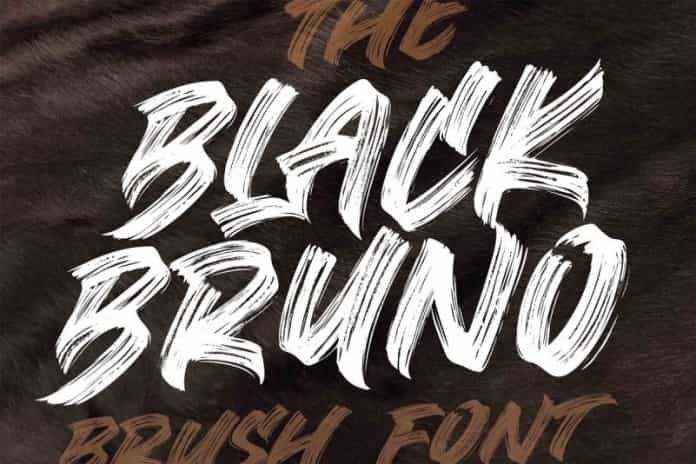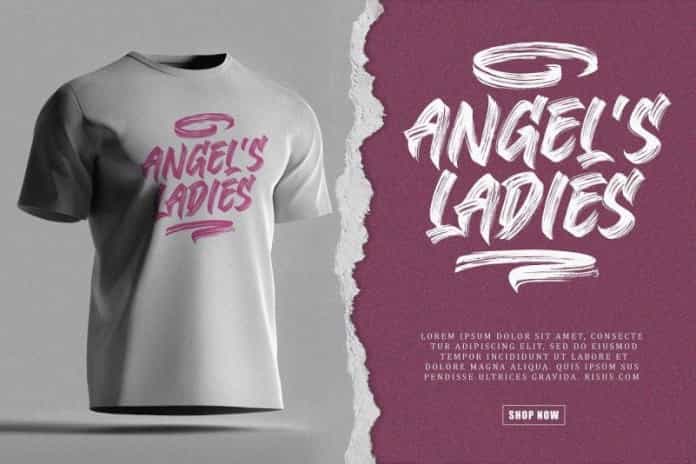
Black Bruno font is a highly charged brush style, street-smart brush type that pulsates with energy. By concentrating on the rapid stroking and the pointed features. This font is just right for the hard jobs, titles, t-shirts, websites, hoodies and other clothes with energy.